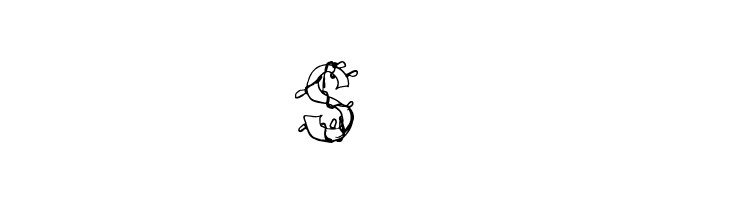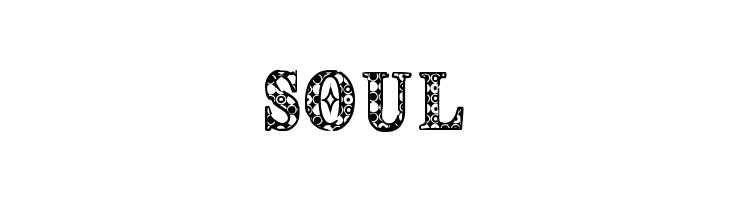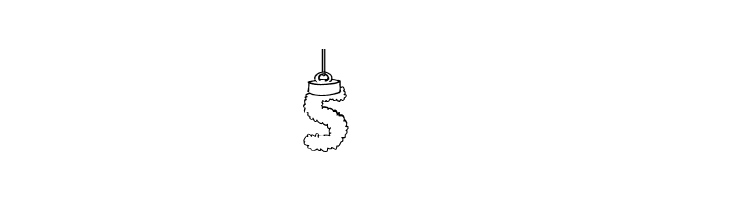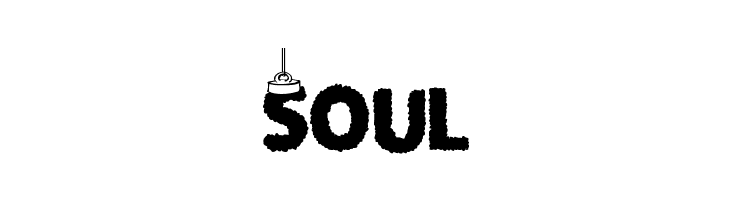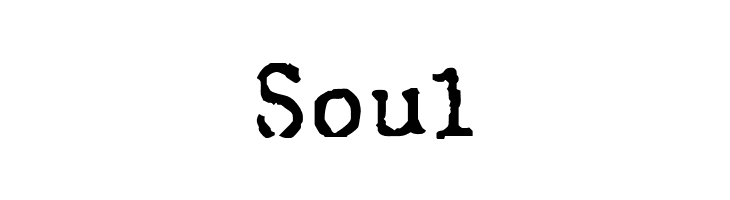
A decorative serif font with characters enclosed in circular frames, offering a classic and elegant style.
A playful, rounded font with a whimsical, hand-drawn style.
Bold, decorative font with high contrast.
A bold, brush-style font with dynamic strokes and a modern, energetic feel.
A modern serif font with clean lines and a professional look.
A bold, robust font with elegant curvature and strong presence.
A bold and italic font with strong, dynamic strokes and excellent readability.
An elegant serif font with an italic slant, featuring moderate contrast and graceful curves.
A playful, hand-drawn font with irregular strokes and a whimsical style.
A playful, hand-drawn font with a sketch-like, artistic appearance.
A sleek, modern font with a futuristic and dynamic design.
A bold, rounded font with a playful and modern style.
A bold, futuristic font with dynamic, slanted characters.
A bold, angular font with a futuristic and geometric design.
Ornate, medieval-style decorative initials with intricate floral designs.
A whimsical and decorative font with swirling, curly embellishments.
A modern, geometric font with circular and symmetrical letterforms.
A playful, casual handwritten font with smooth, flowing curves.
A bold, modern font with a double-line effect and geometric structure.
A bold, outlined font with a modern, geometric style.
A futuristic, angular font with a hollow, outlined design.
A bold, hand-drawn font with a brush-like texture and dynamic style.
An ornate and decorative font with intricate embellishments.
A bold, geometric font with angular lines and a modern look.